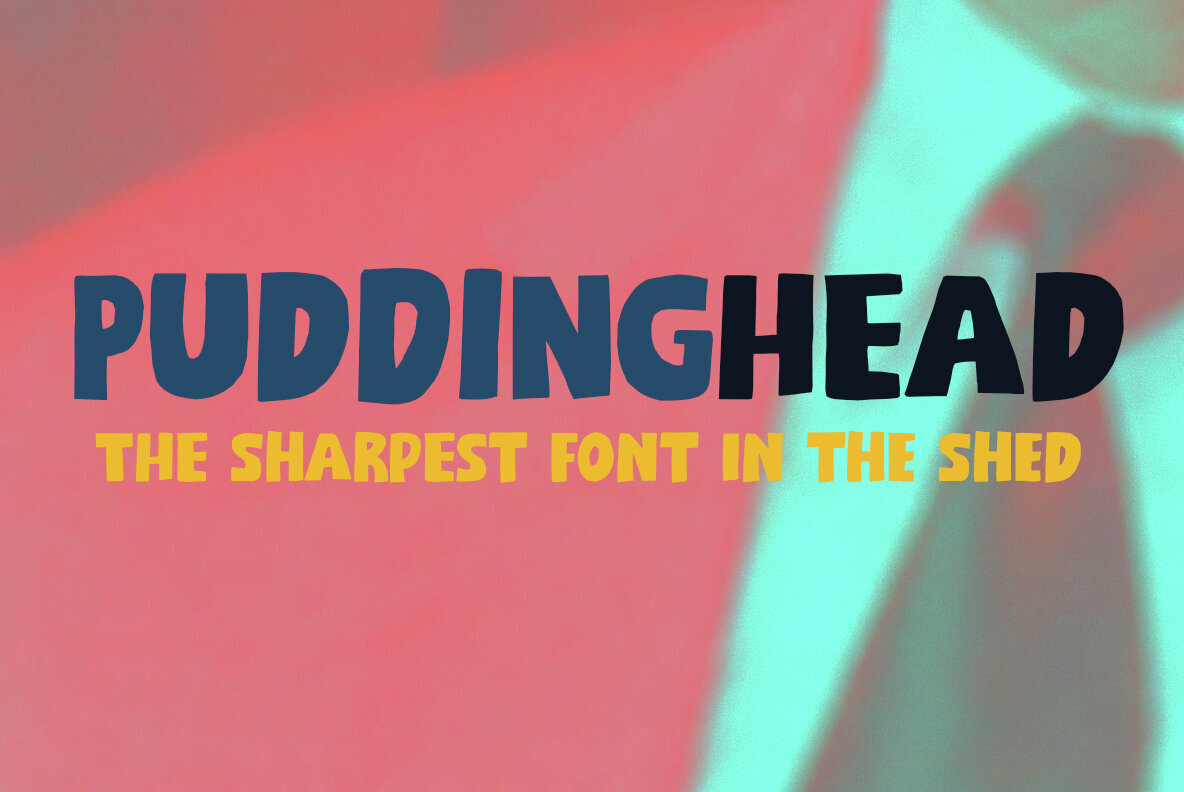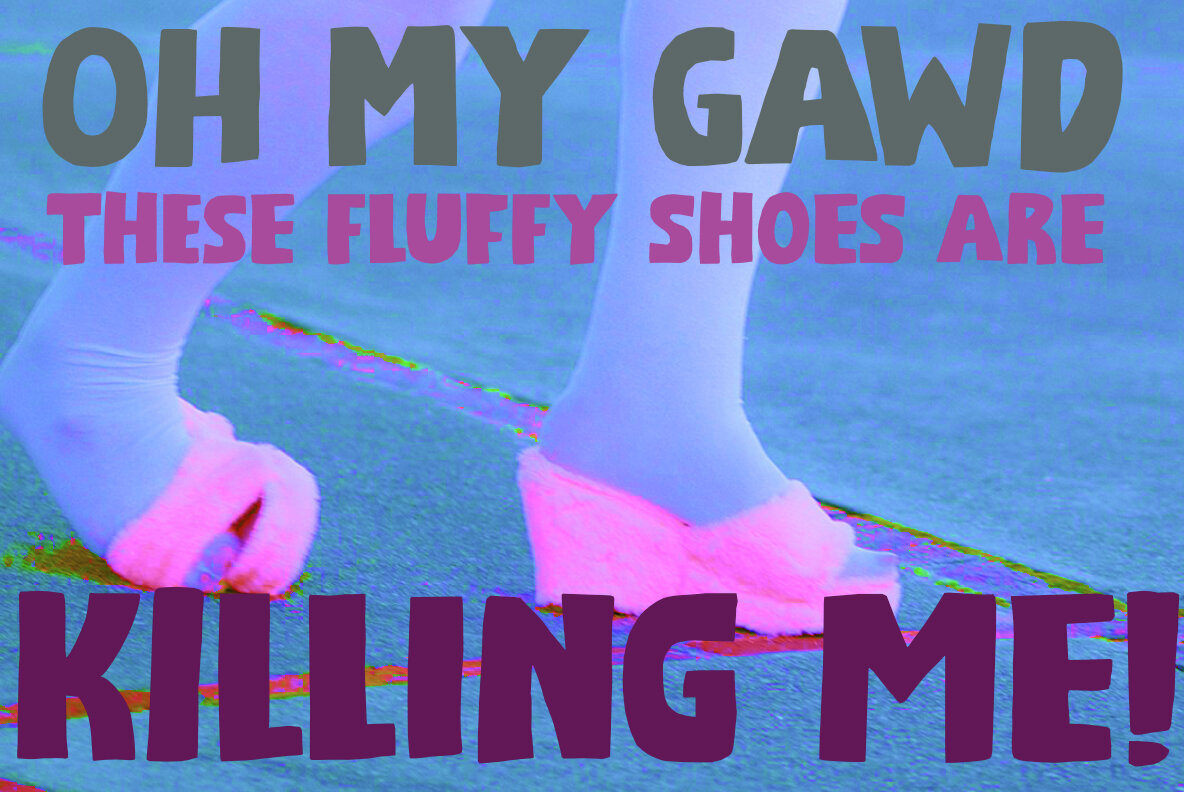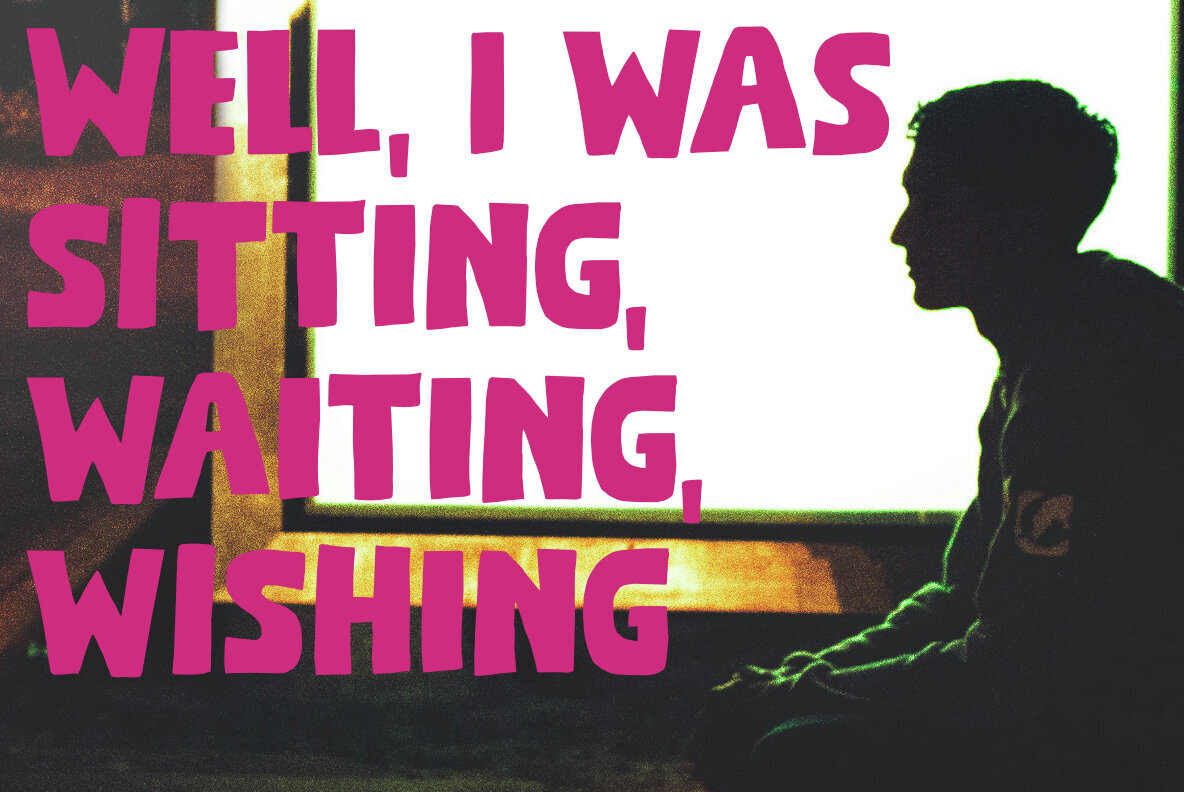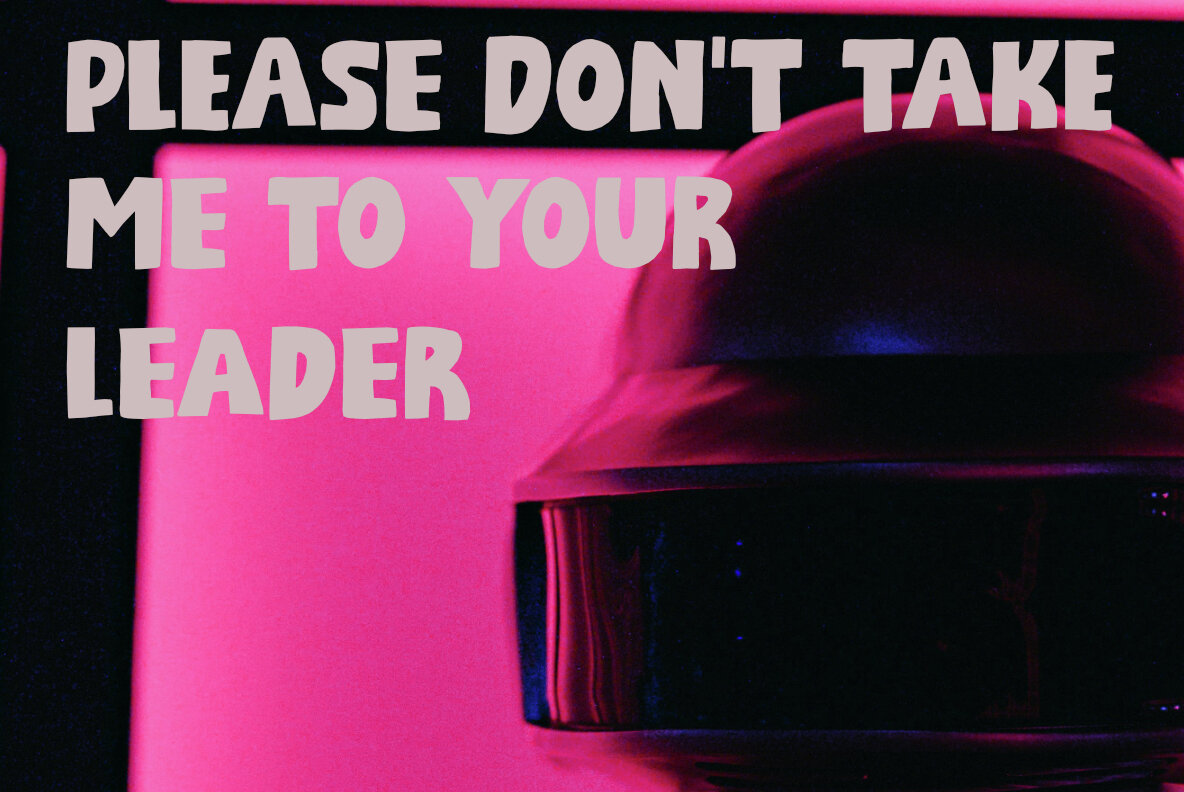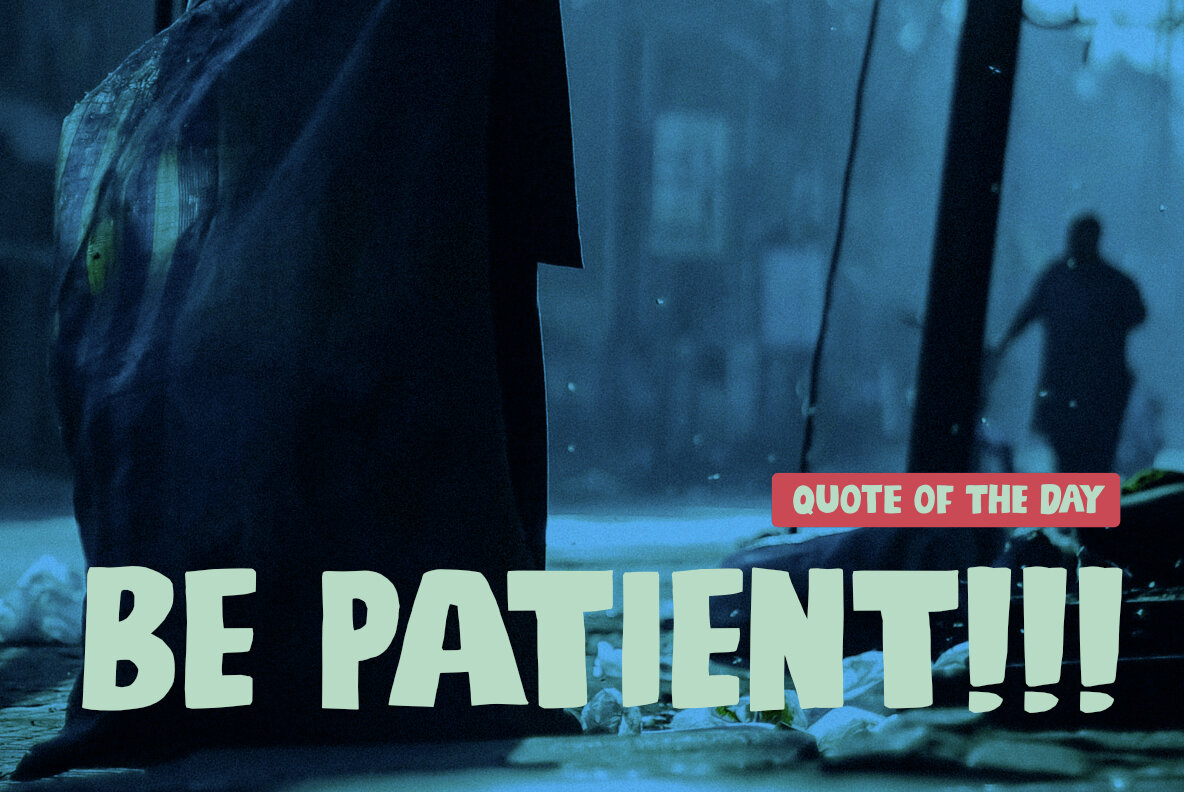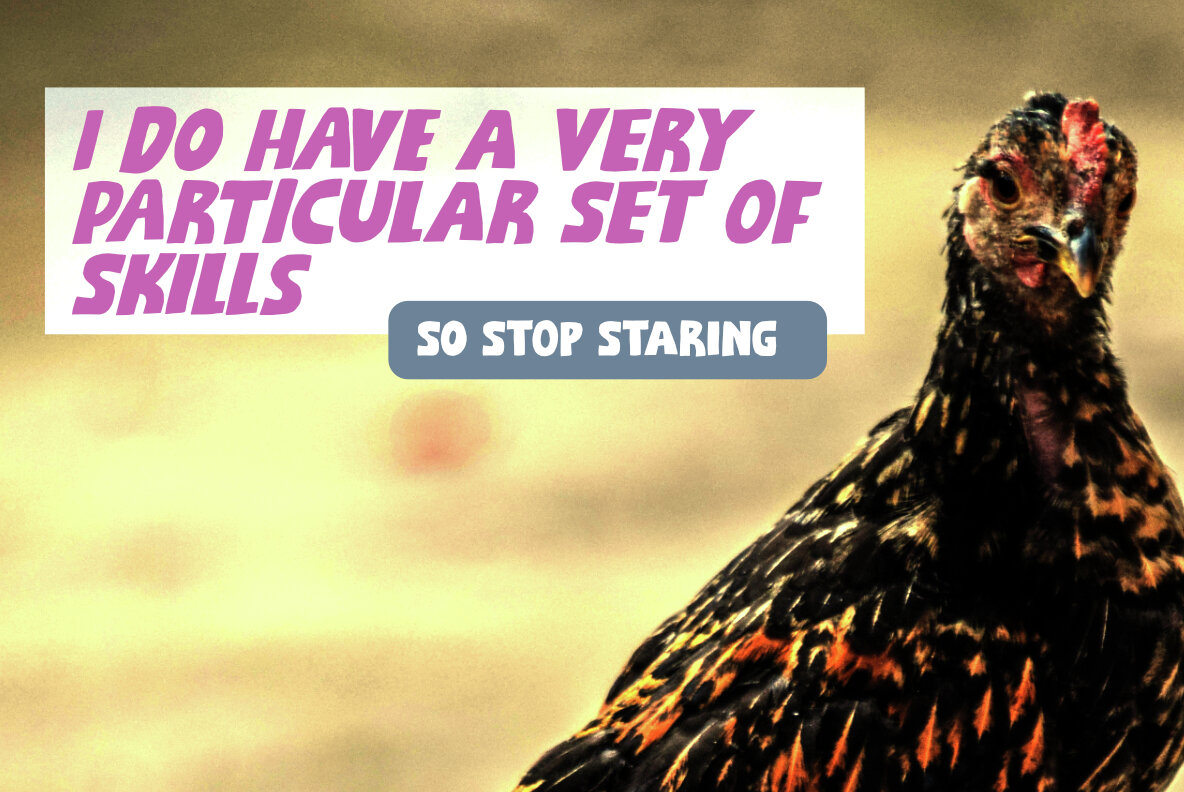
Puddinghead Font
Sure to bring a smile, Puddinghead is a delightful, handmade font that embraces its playful nature. Designed for those instances when subtlety simply won't do, this font thrives in settings demanding boldness and flair. Perfect for eye-catching advertisements, dynamic headlines, and spirited signage. Puddinghead Typeface